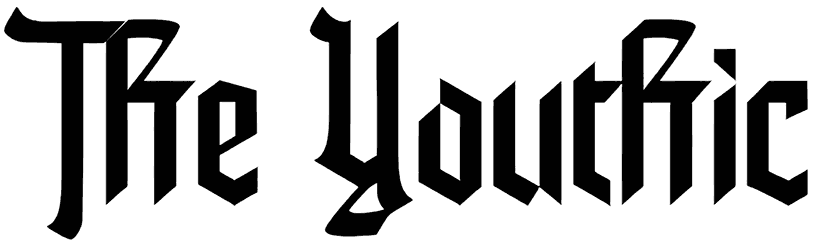
The Youthic Font
With a geometric, modern, and sophisticated design while arousing an initial ancient Gothic font, The Youthic comes to make your writing dreams true through its jagged and pointy look. Sites where it will stand out, including any traditional movie posters, logos, book covers, headlines, and so on. For more of this classification, don’t skip our boundless website.